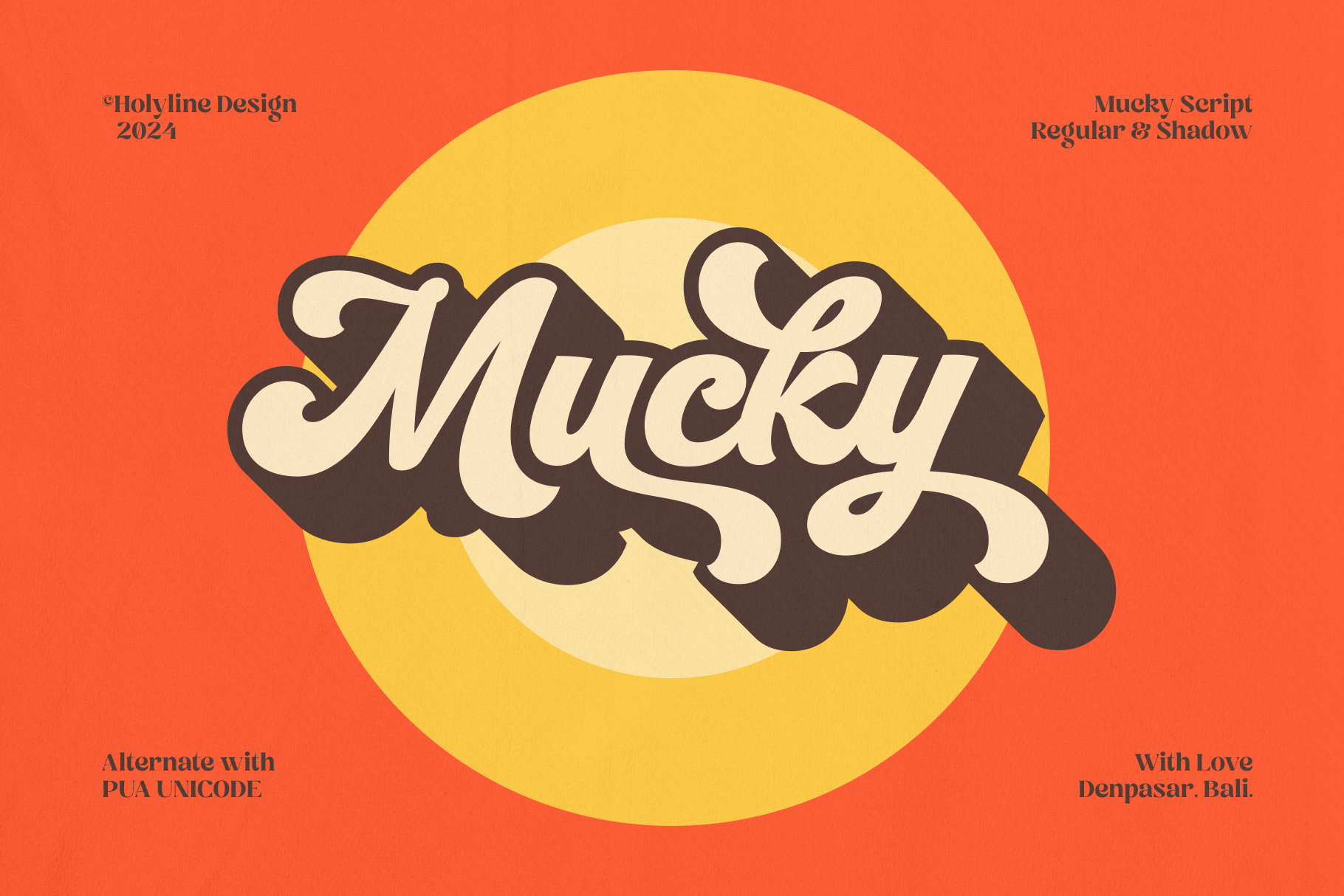
Mucky Script - Retro Groovy Font
Mucky Script is a bold, retro-inspired script font that channels the vibrant energy of the late '60s and '70s. With its funky curves and playful flow, this font is ideal for projects that embrace nostalgia while offering a contemporary twist. Its unique design adds personality and charm, making it an excellent choice for posters, logos, album covers, or any creative endeavor needing a vintage flair.
A highlight of Mucky Script is its built-in shadow style, which allows you to achieve a bold, dimensional look without additional effort. This functionality simplifies the design process, saving time while delivering striking results. Whether you're aiming to capture the spirit of the past or add a touch of retro character to modern projects, Mucky Script is a stylish and versatile choice for any designer.